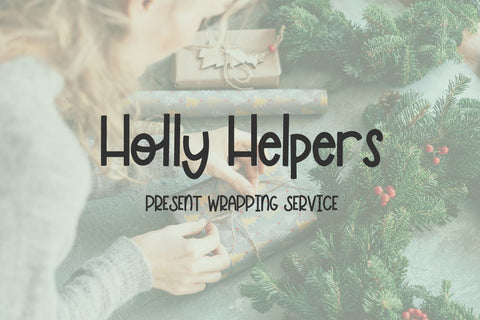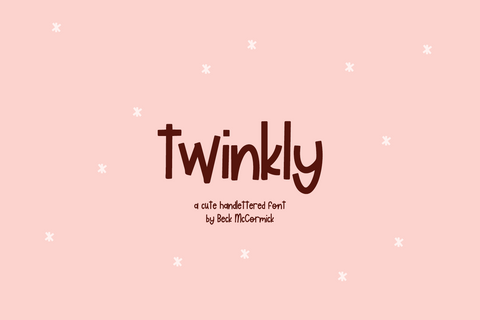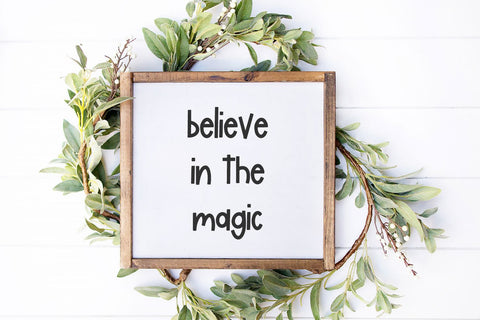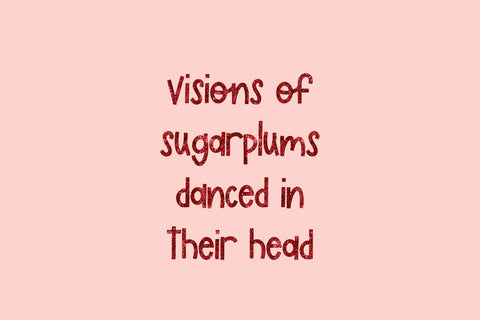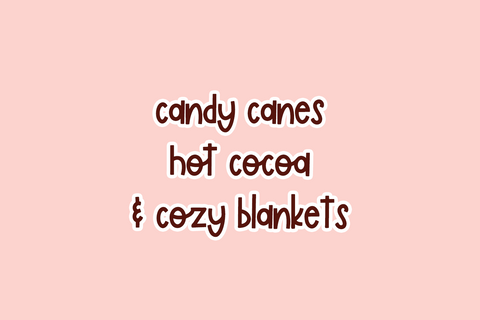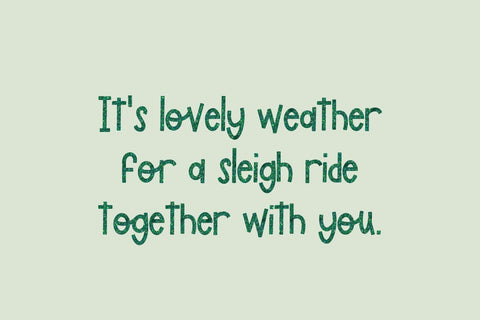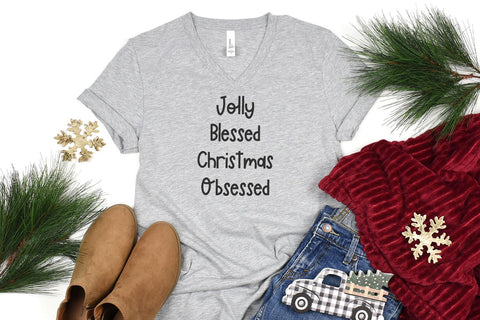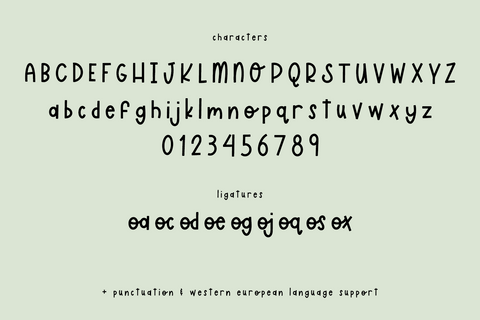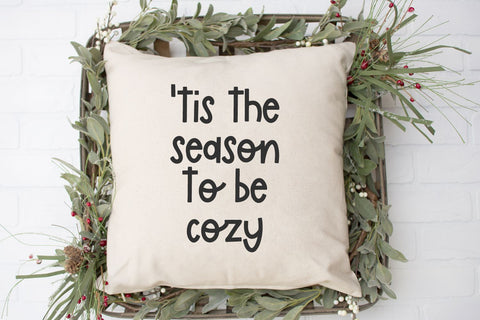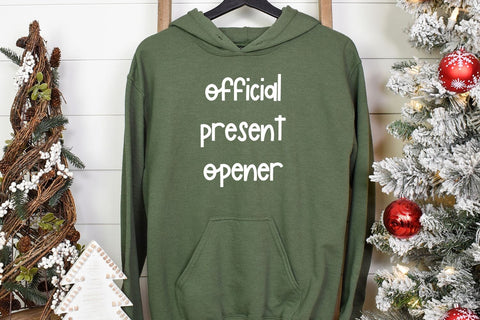
Twinkly Semi-Script Font
Introducing Twinkly Script, a modern handwritten semi-script. Twinkly is thick with slightly squared off ends.
Twinkly Script is best for:
- quirky farmhouse decor and crafts
- logos + branding
- website design + website accents, blog design
- clean print design, like magazines + flyers
- header elements that need handwritten touch
- quote graphics for social media
- feminine graphic tee shirt design & other apparel
- Christmas projects like cards & gift tags
Twinkly Script includes:
- full upper + lowercase characters
- numbers + punctuation
- Western European Language Support
- 9 ligatures - oa, oc, od, oe, og, oj, oq, os, ox